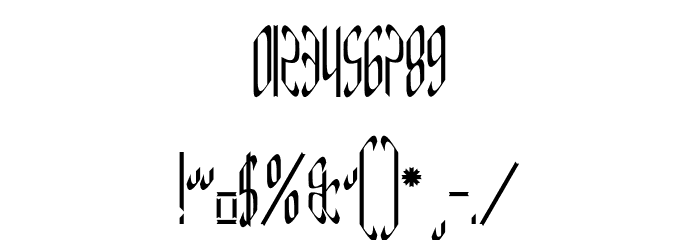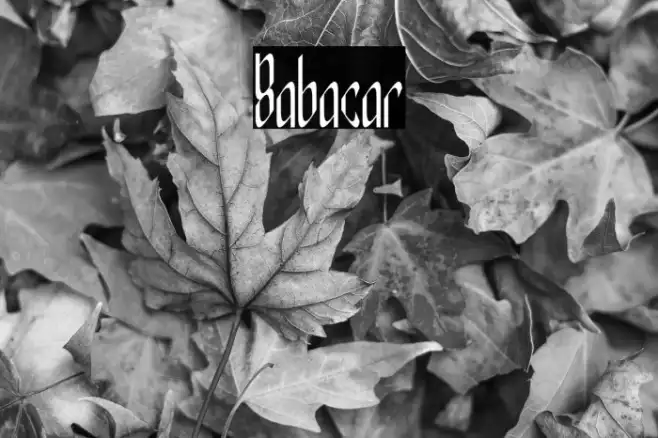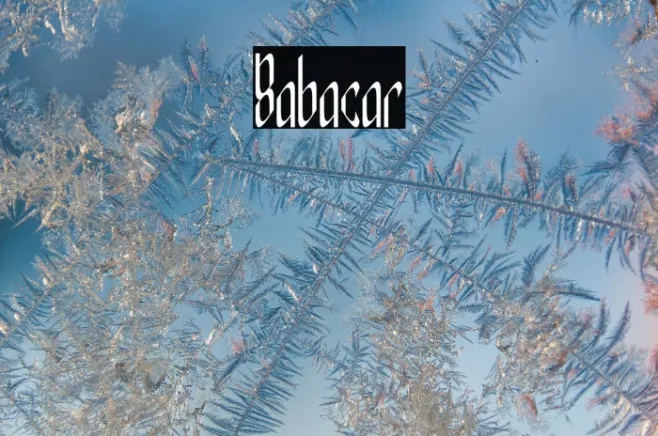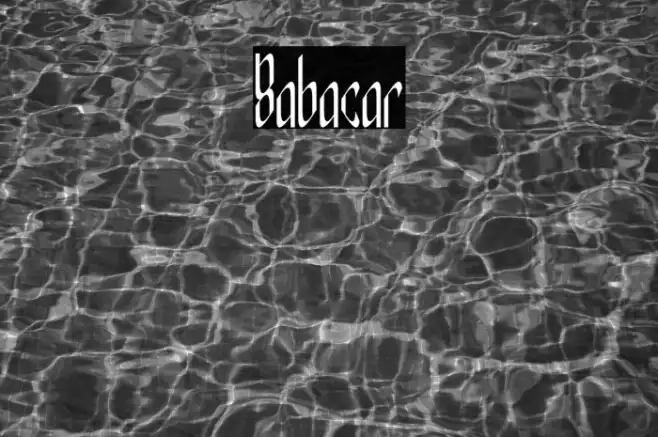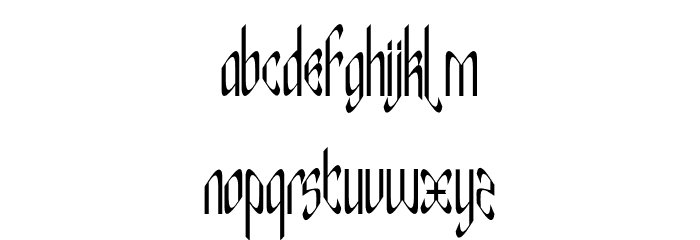
Babacar Font
This font features a unique blend of modern and vintage styles, characterized by its tall, narrow letterforms and sharp, angular edges. The uppercase letters exhibit a distinct Gothic influence, with elongated vertical strokes and pointed serifs that give the font a dramatic and bold appearance. The lowercase letters maintain the same angular style, creating a cohesive look across all characters. The numbers and special characters follow this design, ensuring consistency throughout. The font's high contrast between thick and thin strokes adds to its striking visual impact, making it ideal for attention-grabbing designs.
A bold, angular font with Gothic influences and high contrast strokes.